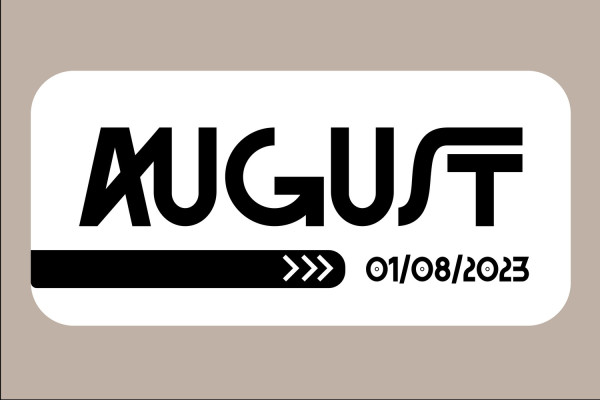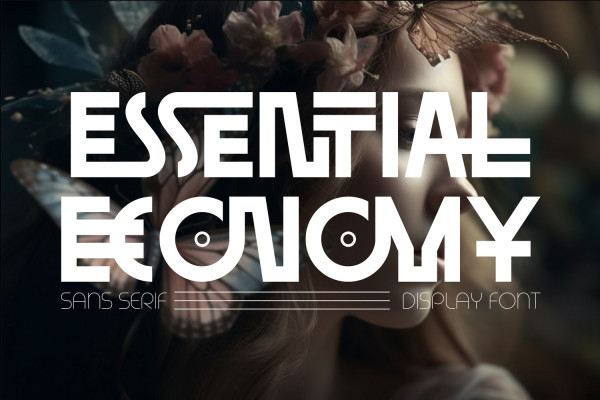
Essential Economy Font
Essential Economy Futuristic Font is modern ligature sans serif font. Futuristic sans serif font that is out of this world. A strong balance between strong pointed corners and smooth curves, perfect for all purposes but especially for headlines. It is perfect for headline, billboard, magazines, website, titles, poster, branding, and logos. With tons of ligatures, alternates, and other features to choose from, you can make your project stand out from the rest.
Essential Economy was built with OpenType features and includes 100 ligatures, alternate, numbers, punctuation, and it also supports other languages.